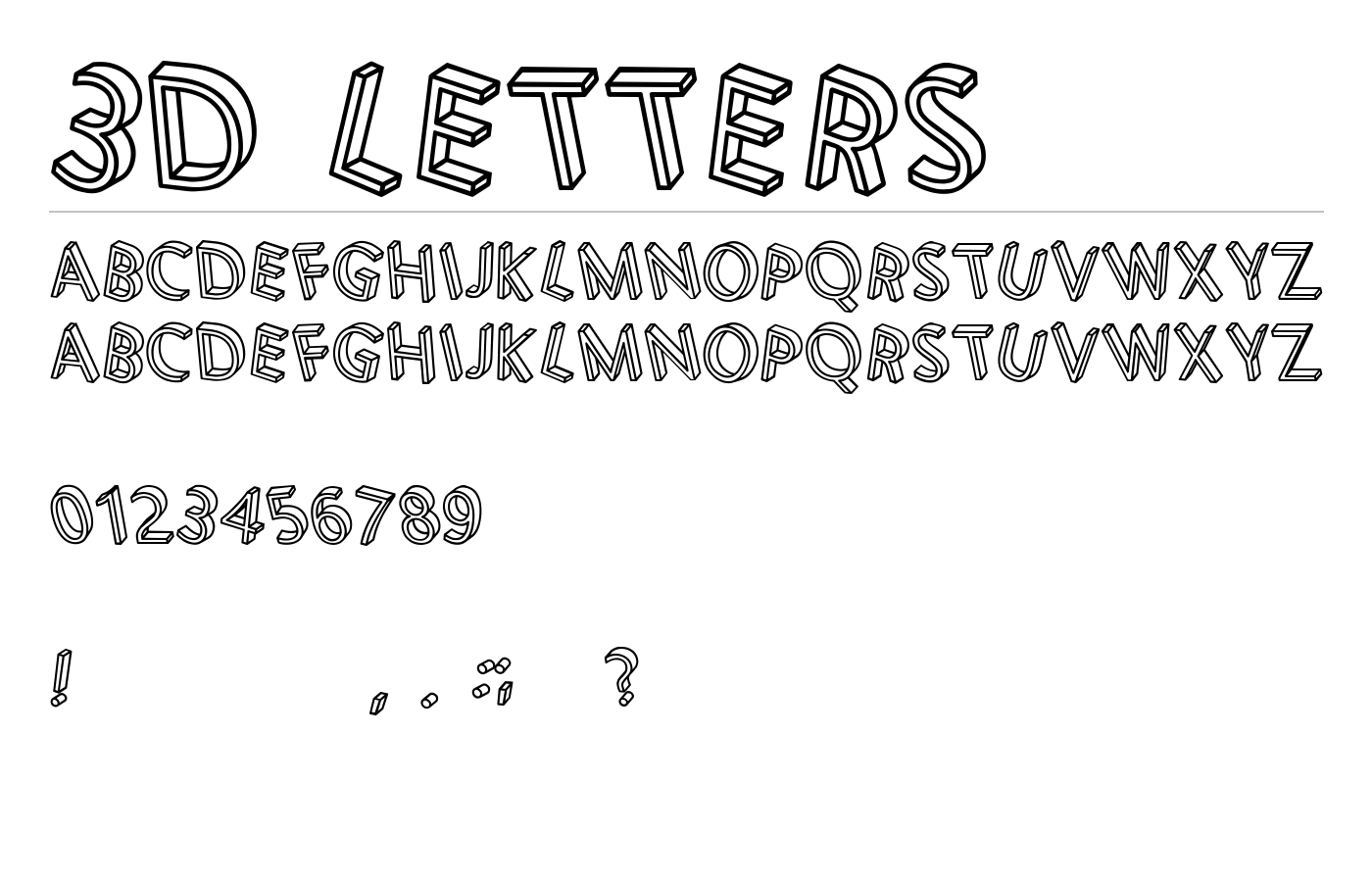
3D Letters Font is a playful and bold sans serif typeface with a distinctive three-dimensional outline style that gives each character depth and visual interest. Its uppercase-only design, combined with geometric letterforms and clean, angled shadows, makes it perfect for eye-catching headlines, logos, and creative projects where a fun, modern, and dynamic look is desired. This font works especially well in posters, branding, and display uses where a strong, playful presence is needed.
3D Letters Font
About 3D Letters Font